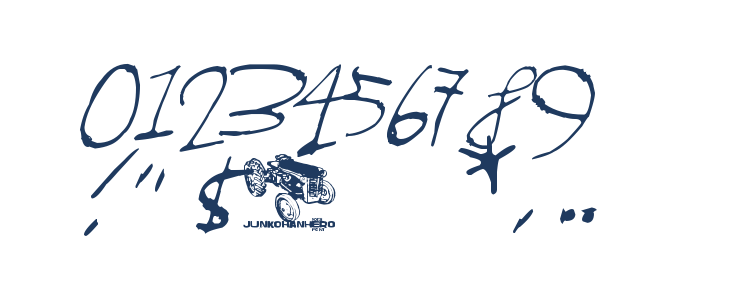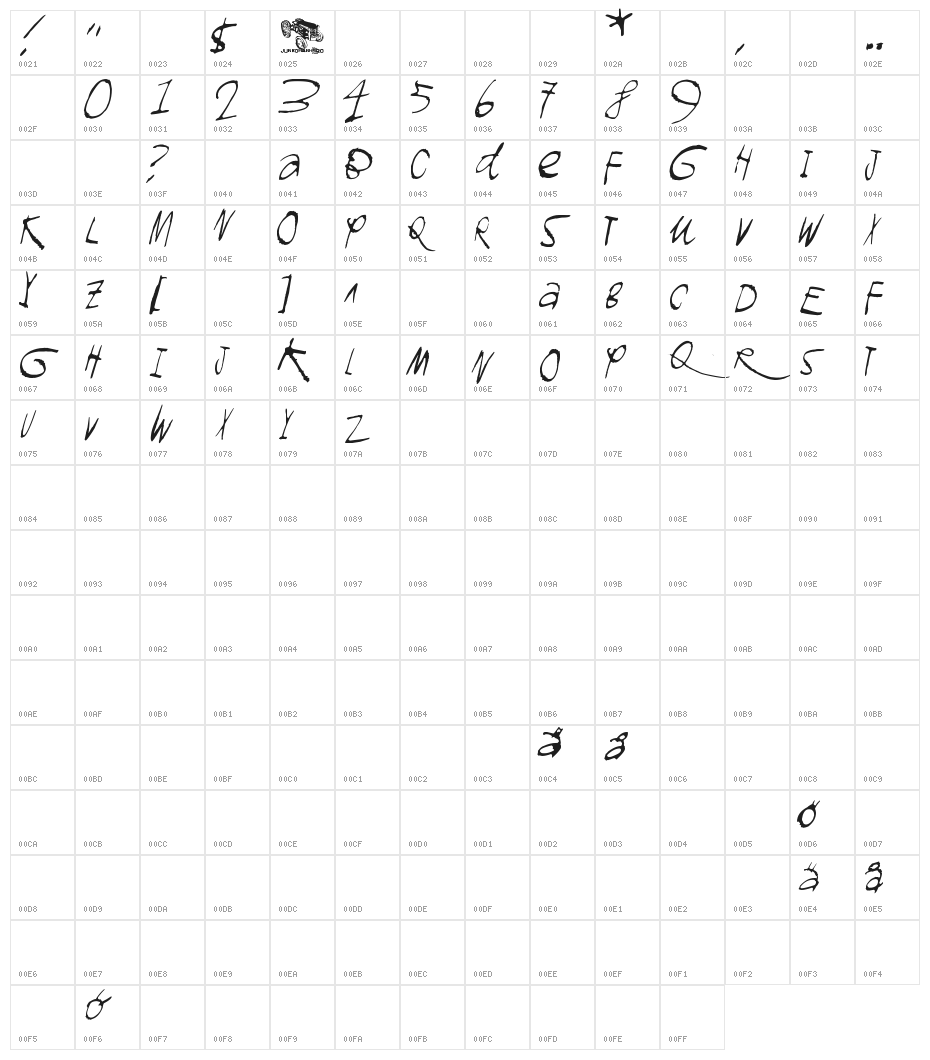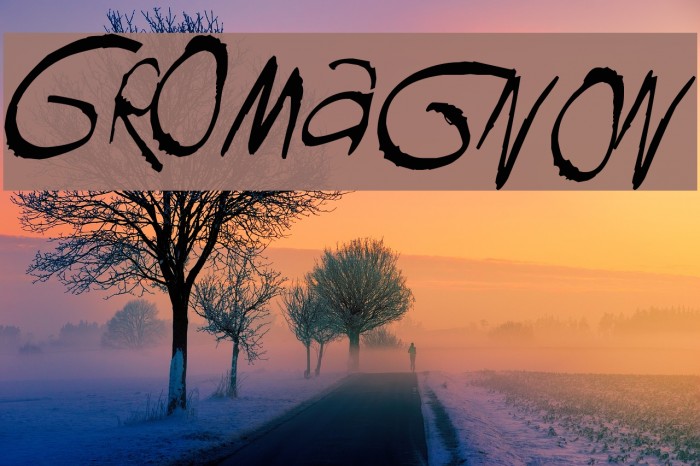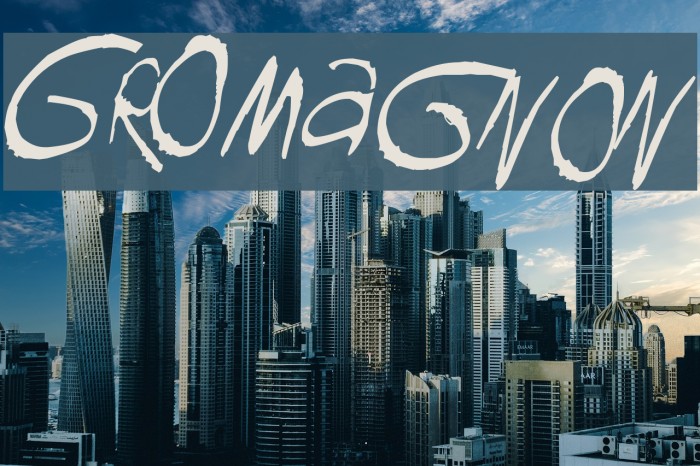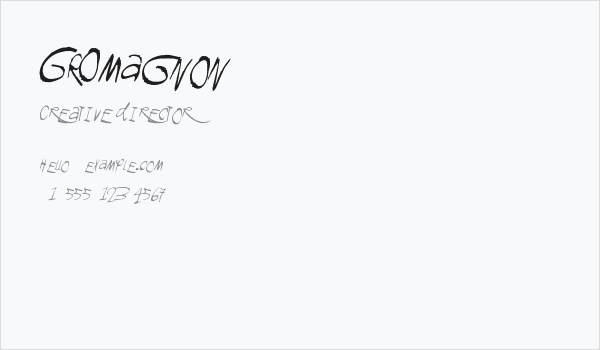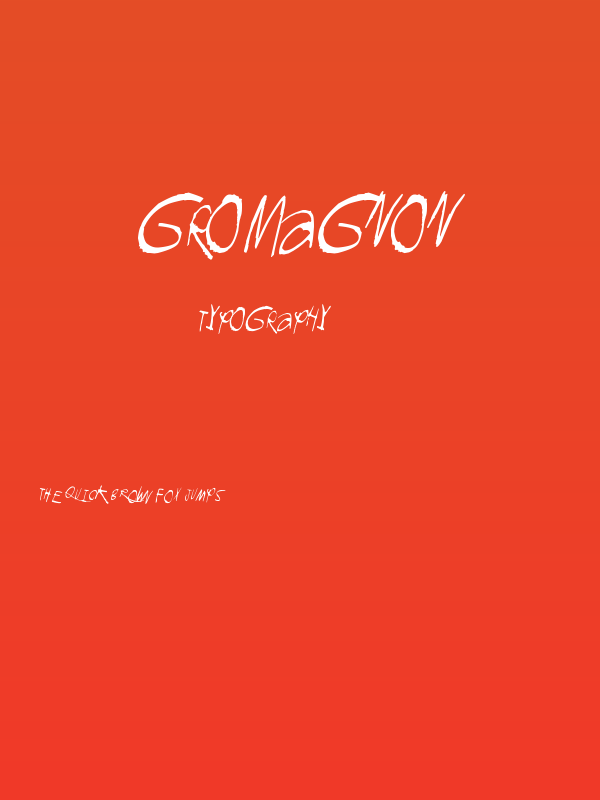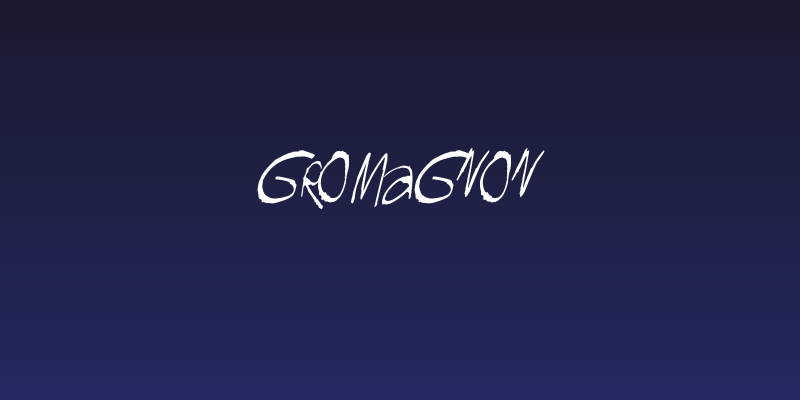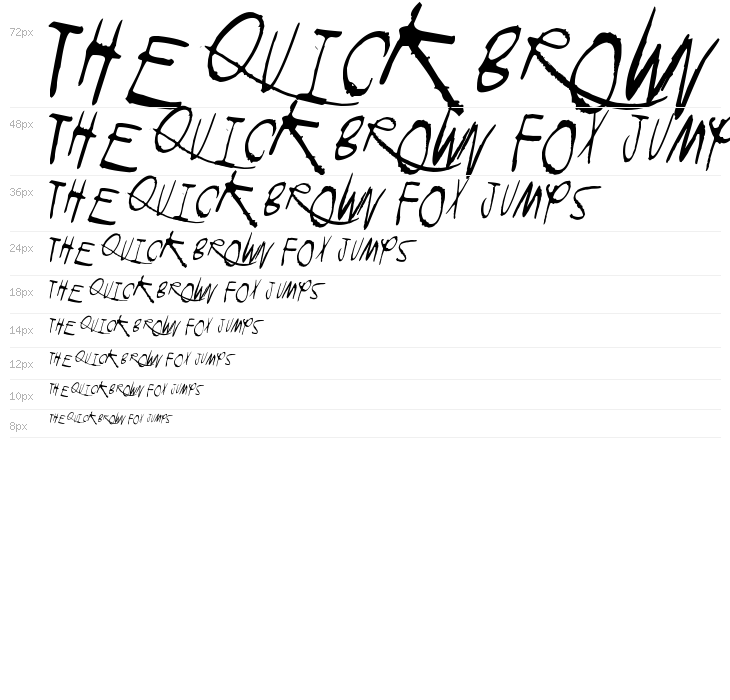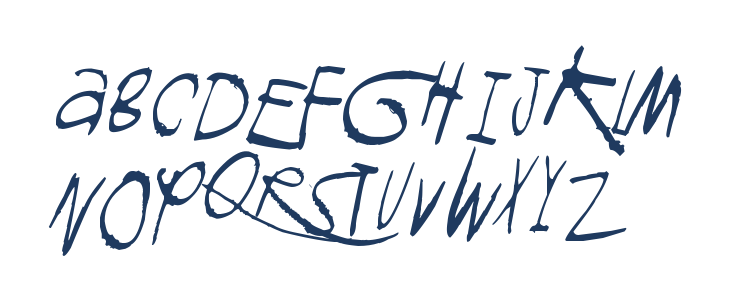
GROmagnon Font
GROmagnon Description
This font features a dynamic and expressive style, reminiscent of hand-drawn graffiti or brush strokes. The characters are irregular and bold, with varying thicknesses that give it a raw and energetic feel. The uppercase and lowercase letters maintain a consistent flow, while the numerals and special characters add to its eclectic appearance. The overall design is both artistic and edgy, making it suitable for projects that require a bold statement.
| Overall Style | Modern, Artistic |
| Proposed Projects | Ideal for street art-inspired designs, album covers, posters, and creative branding projects. |